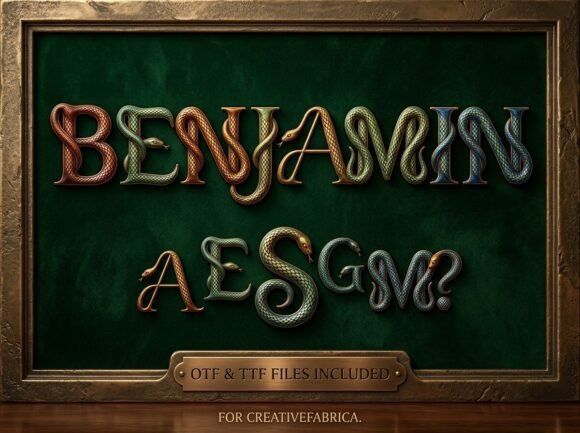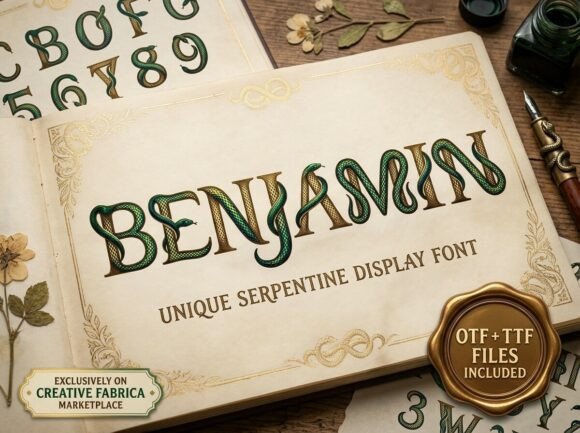
Introducing Benjamin Font: The Ultimate Decorative Display Font
Are you tired of using the same old fonts in your designs? Look no further than Benjamin Font, a stunning decorative display font that’s sure to turn heads. With its unique artistic elements and strong visual personality, this font is perfect for creators who want to break away from the ordinary and make a statement.
Benjamin Font is designed to be the center of attention, featuring intricate details and creative letterforms that are sure to add an instant “wow” factor to any project. Whether you’re designing a modern poster, a unique brand identity, or eye-catching social media content, this font is the perfect choice. Its bold and artistic style makes it ideal for high-impact designs where the typography needs to do the talking.
One of the best things about Benjamin Font is its versatility. It’s perfect for a wide range of design applications, including:
- Poster Design: Create headlines that people can’t look away from. With Benjamin Font, you can create stunning posters that grab attention and leave a lasting impression.
- Branding & Logos: Build a unique identity for creative businesses. This font is perfect for creating artistic logos that reflect a brand’s personality and style.
- Apparel & Merch: Perfect for T-shirts, hoodies, and tote bag designs. Add a touch of elegance and sophistication to your merchandise with Benjamin Font.
- Social Media Content: Create eye-catching social media content that stands out from the crowd. From Facebook posts to Instagram stories, this font is sure to make your content shine.
Why Choose Benjamin Font?
So why choose Benjamin Font over other decorative display fonts? Here are just a few reasons:
- Unique Artistic Elements: This font features unique artistic elements that set it apart from other fonts. Its creative letterforms and intricate details make it a true standout.
- Strong Visual Personality: Benjamin Font has a strong visual personality that’s sure to make a statement. It’s perfect for designers who want to create bold and eye-catching designs.
- Professional and Polished Finish: Despite its bold and artistic style, Benjamin Font maintains a professional and polished finish. It’s perfect for designers who want to create high-quality designs that reflect their brand’s personality.
Tips for Using Benjamin Font
Here are a few tips for using Benjamin Font in your designs:
- Use it for Headlines: Benjamin Font is perfect for headlines and titles. Use it to create bold and eye-catching headlines that grab attention.
- Experiment with Colors: Don’t be afraid to experiment with different colors and textures. Benjamin Font looks great in a variety of colors and can be paired with a range of textures and patterns.
- Pair it with Other Fonts: Benjamin Font can be paired with other fonts to create a unique and interesting design. Try pairing it with a clean and simple font to create a bold and eye-catching design.
In conclusion, Benjamin Font is a stunning decorative display font that’s perfect for designers who want to create bold and eye-catching designs. With its unique artistic elements, strong visual personality, and professional and polished finish, this font is sure to add an instant “wow” factor to any project. Whether you’re designing a modern poster, a unique brand identity, or eye-catching social media content, Benjamin Font is the perfect choice.